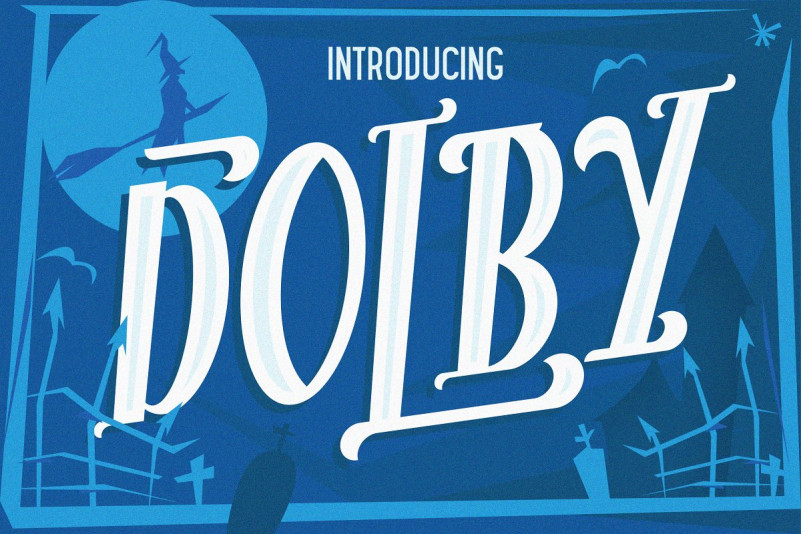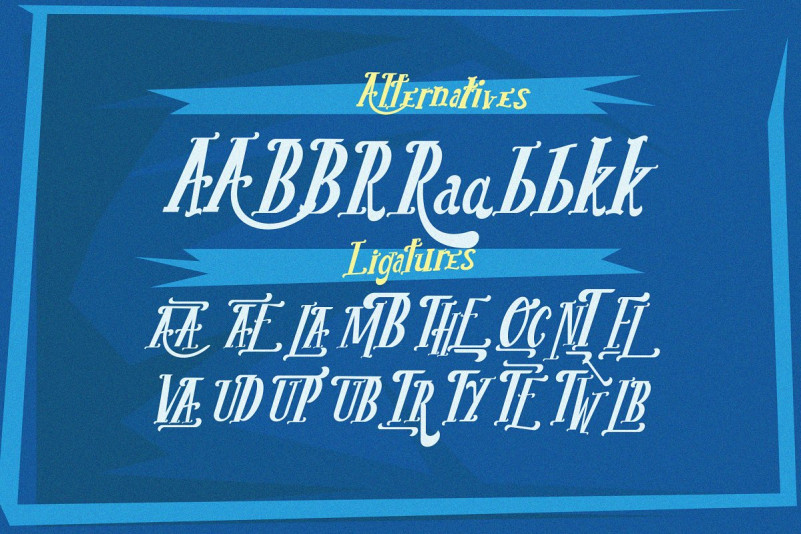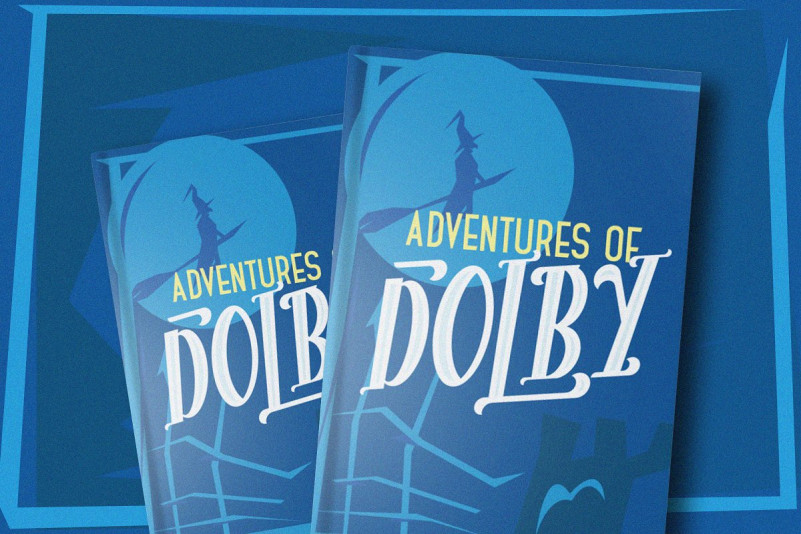
The Dolby Font
The Dolby Font is new font from Leo Supply Co, the font with simple, playful, wide, experimental and versatile character font set.
Come with 3 styles, a regular, tall and italic to create an option for the designs. To create the beautiful combination, Mix and match the upper and lowercase letters and then mix with the alternative and ligature glyphs.
The Dolby Font includes a full set of capital and lowercase letters, as well as multi-lingual support, currency figures, numerals, punctuation and ligatures. Mix and match the upper and lowercase letters and throw in some memphis-style doodles to get exactly the look you want. then mix with the alternative glyphs